If you’re working on a poster, flyer, or greeting card design, an outline font is a great choice for adding titles and headlines that attract attention. In this post, we’re featuring some awesome outline fonts you can use in not only print designs but in digital graphic designs as well.
Unlike most other types of fonts, an outline font is easily recognizable. Just as the name suggests, an outline font features a character design that only consists of outlines without a fill. These fonts are widely used to create attractive titles and headlines. They are also used in logo and stationery designs as well.
This collection includes a mixed collection of outline fonts you can use in various types of professional, decorative, and business graphic designs. Take a look and see if you can find an outline font that suits your project.
01. VISIA Duo: Geometric Outline Font
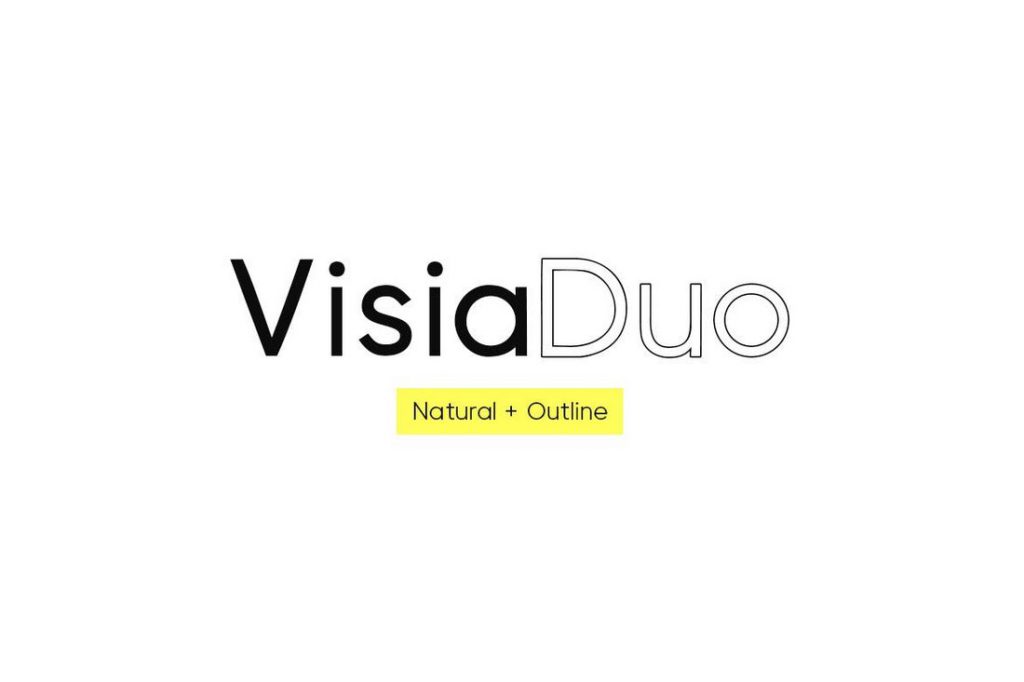
Visia Duo comes with both an outline typeface and a regular typeface, allowing you to easily combine the two to create unique designs.
The pack includes 8 different fonts including 4 different weights for the outline and regular fonts featuring bold and italic versions.
02. Pittsbrook: Modern Outline Font
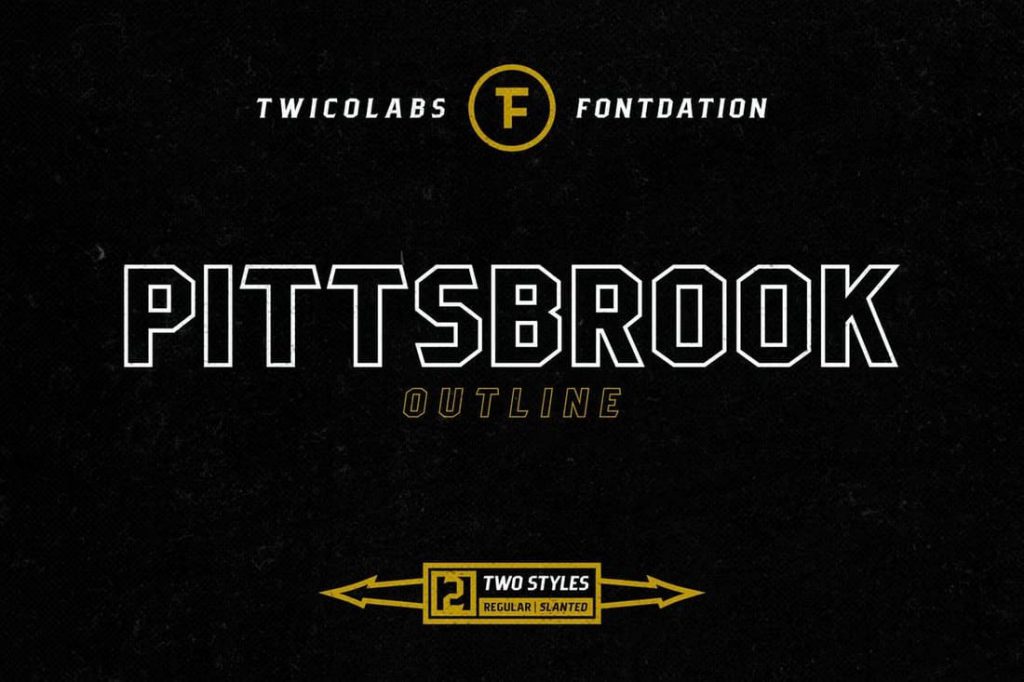
Featuring a design inspired by the classic font designs used in vintage packaging, this outline font is designed specifically for making labels and headlines. However, the font also looks like a great choice for designing sports-related logos as well.
03. Polygon Technology: Futuristic Font
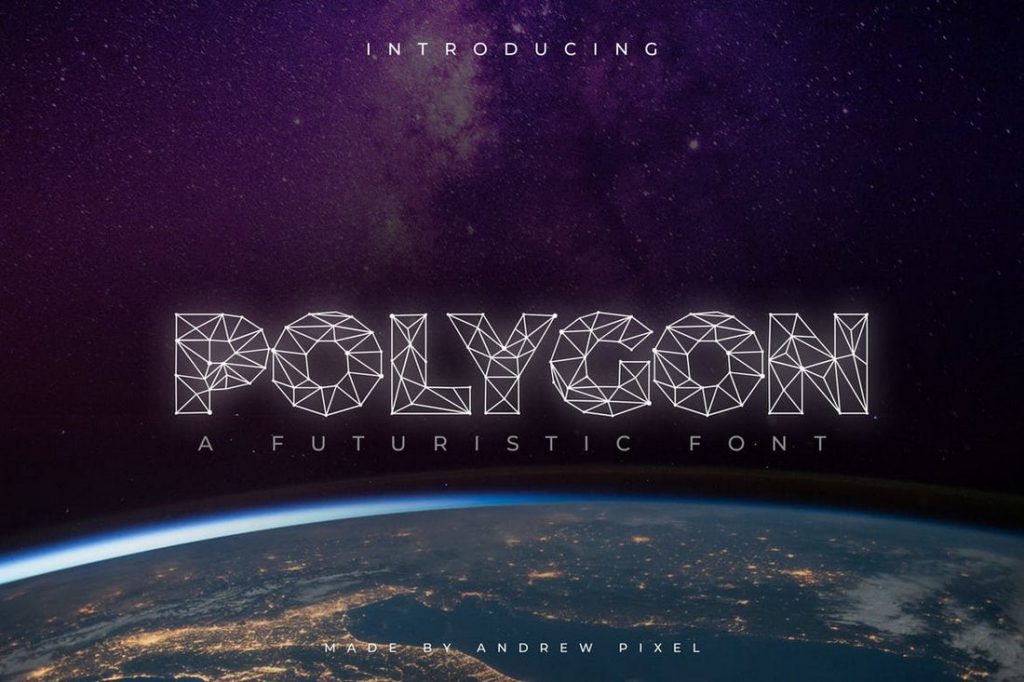
Even though this is technically not an outline font, its unique design makes it deserves a spot on our list. This font features an outline-like hollow design crafted with polygon shapes. It’s perfect for designing unique titles and logos.
04. Monday Vacation: Free Outline Font
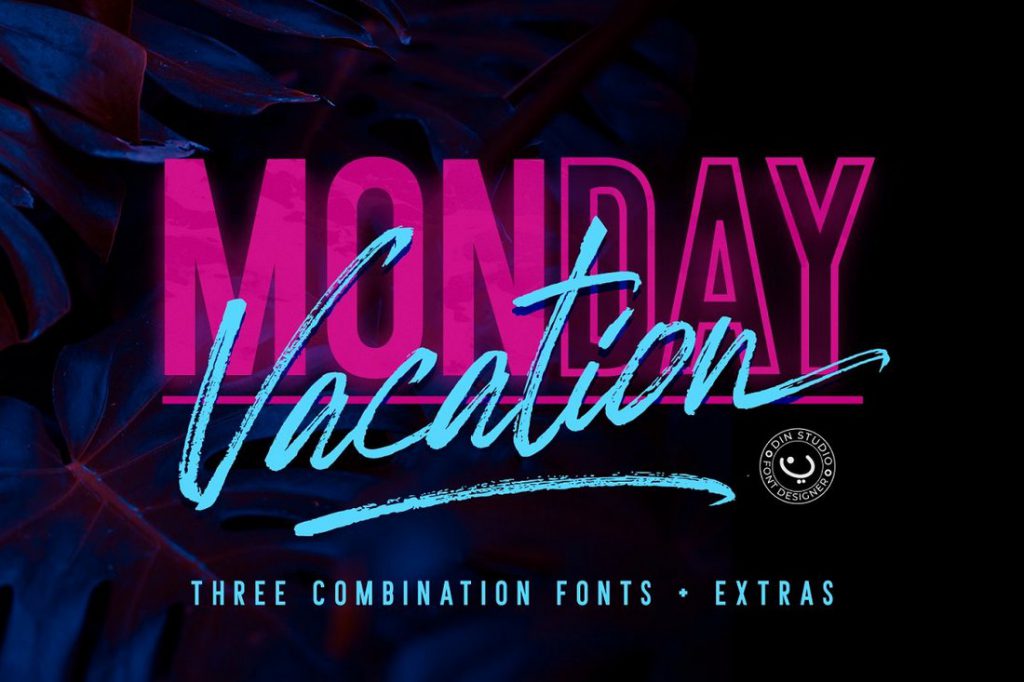
Monday Vacation is a pair of unique fonts. It includes a brush script font and an outline sans-serif font, both of which that goes together well in various creative designs. It’s free to use with personal projects.
05. Library 3 AM: Free Modern Outline Font
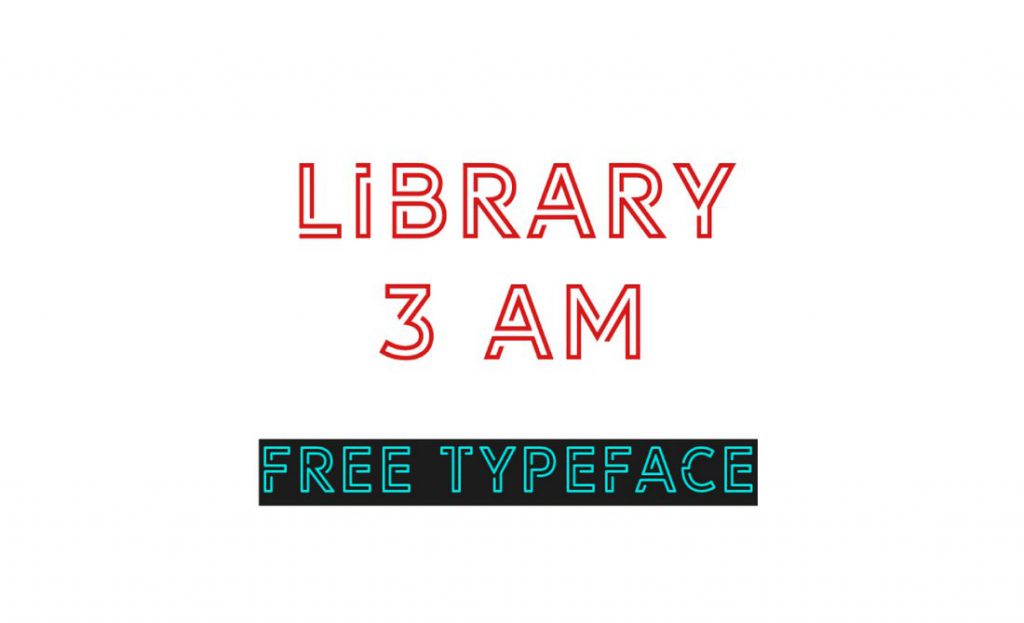
Library 3 AM is a free outline font with a creative design. This font is ideal for designing logos, business cards, posters, and more. The font is free to use with personal and commercial projects.
06. Portico Outline: Bold Display Font
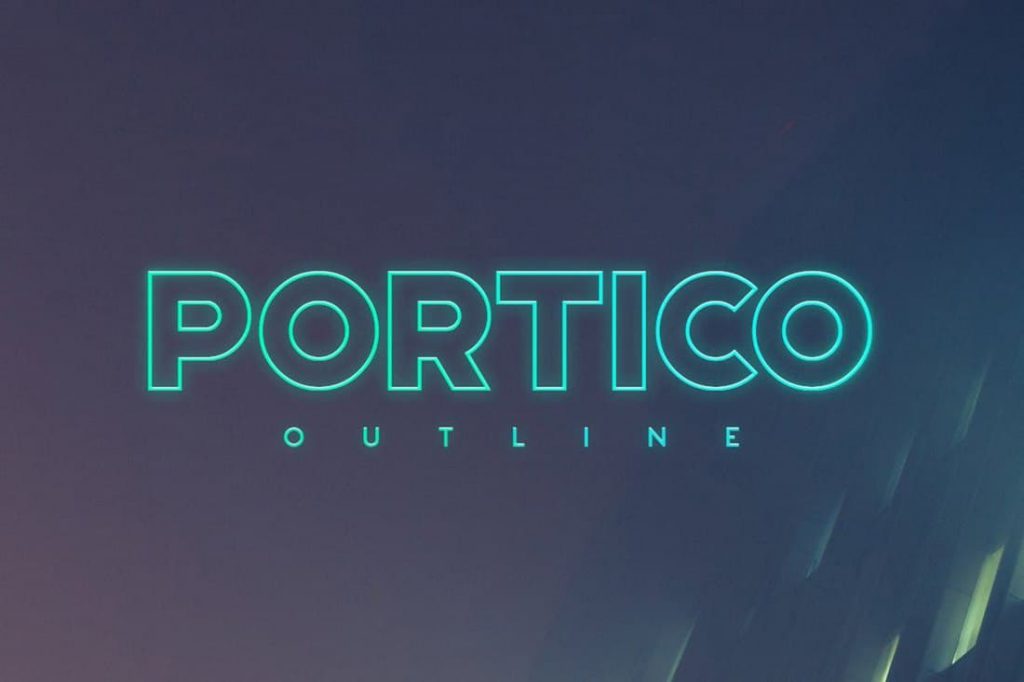
Looking for an outline display font for designing big bold titles and headlines? Look no further. Portico Outline features all the elements you’ll need to design eye-catching headers, posters, and banners that attract attention. When combined with the regular version of the Portico font, it makes a great font choice for many types of designs.
07. Burford Outline: Modern Outline Font
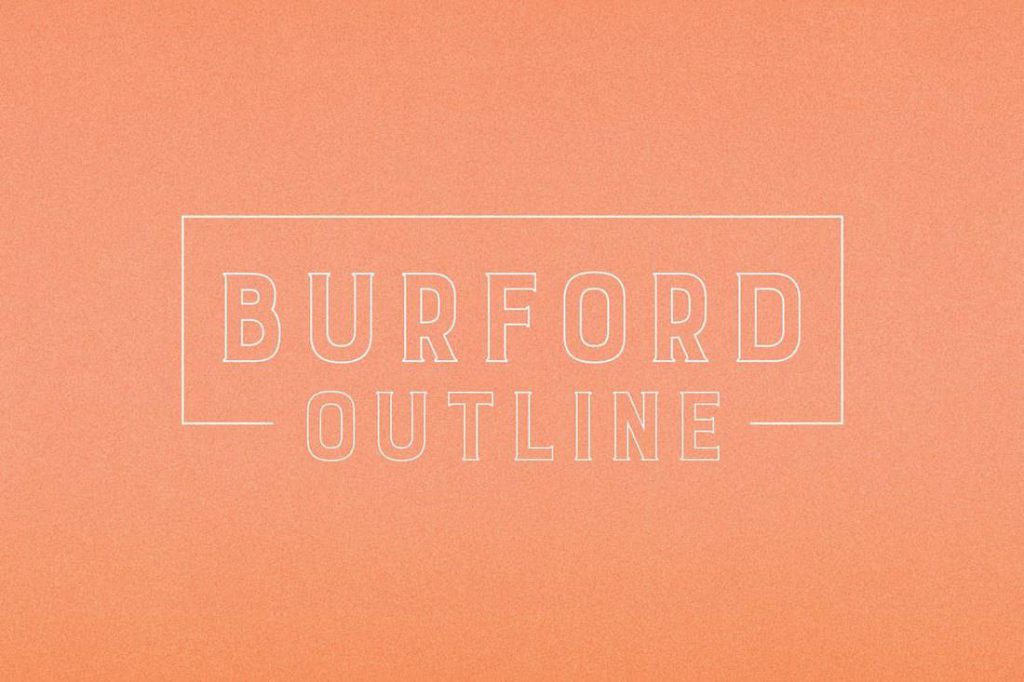
This is the outline version of the popular Burford font family. It features the same bold and elegant design of its predecessors. You can download all the other fonts of the Burford family from Envato Elements as well.
08. Freeline: Monogram Outline Font
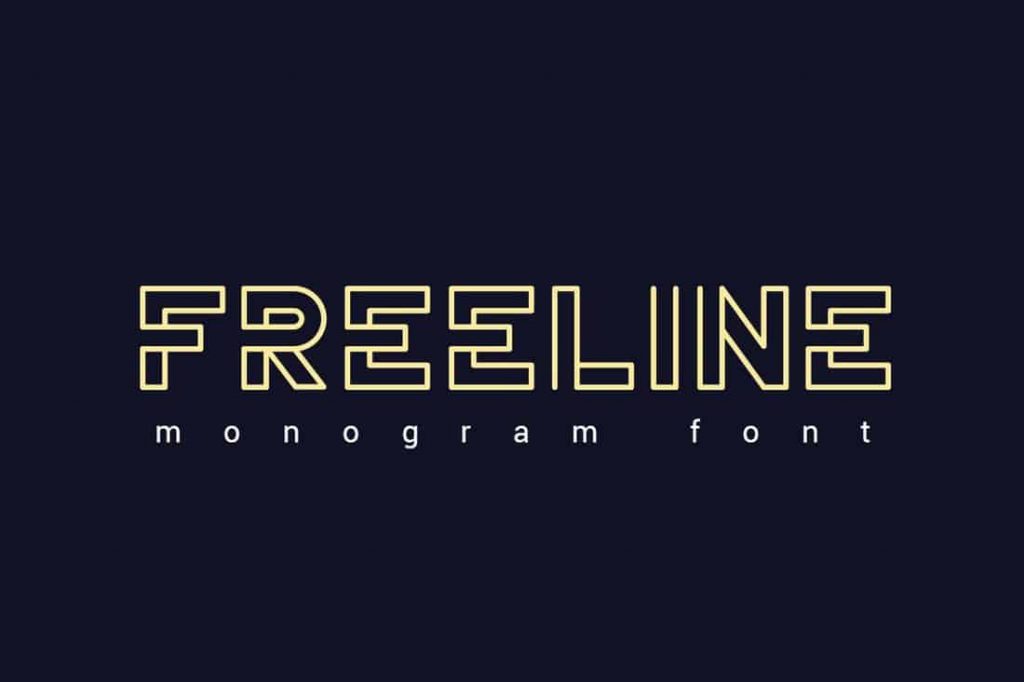
There are many different styles of outline font designs, but this particular font comes with a design that will stand out from the crowd. It has a creative monogram style design that makes it an ideal choice for crafting logos and signage as well as posters and website headers.
09. Exodar: Futuristic Outline Font
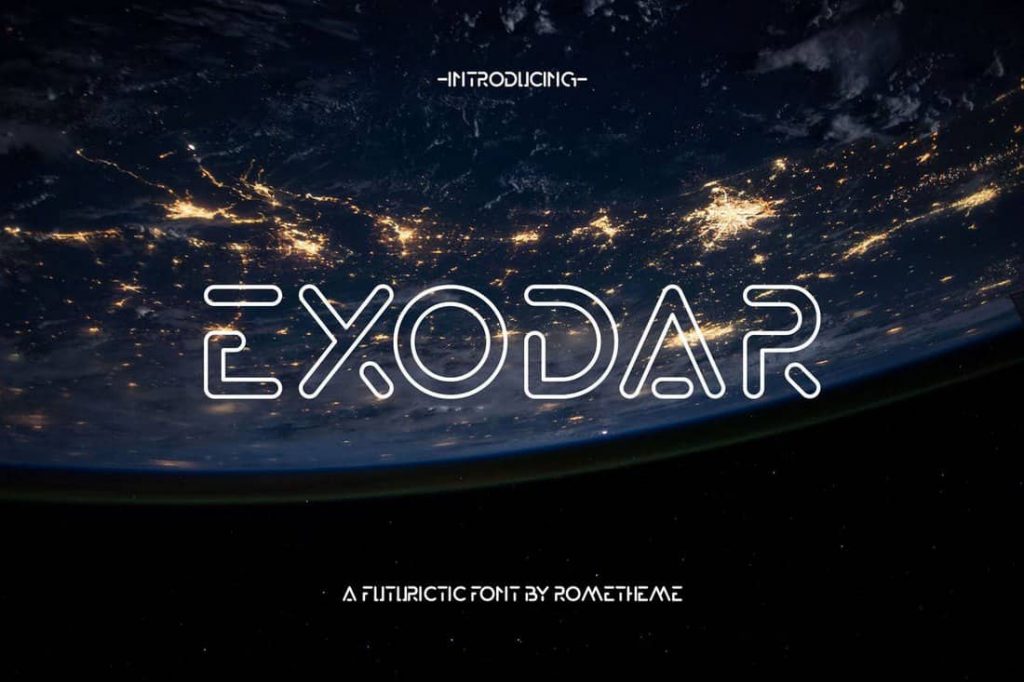
Exodar is a modern outline font that comes with futuristic design. Unlike other fonts, this one features a set of unique characters with a touch of sci-fi design. You can use this font to craft titles and headers for posters, book covers, banners, logos, and more.
10. Altero: Free Clean Outline Font
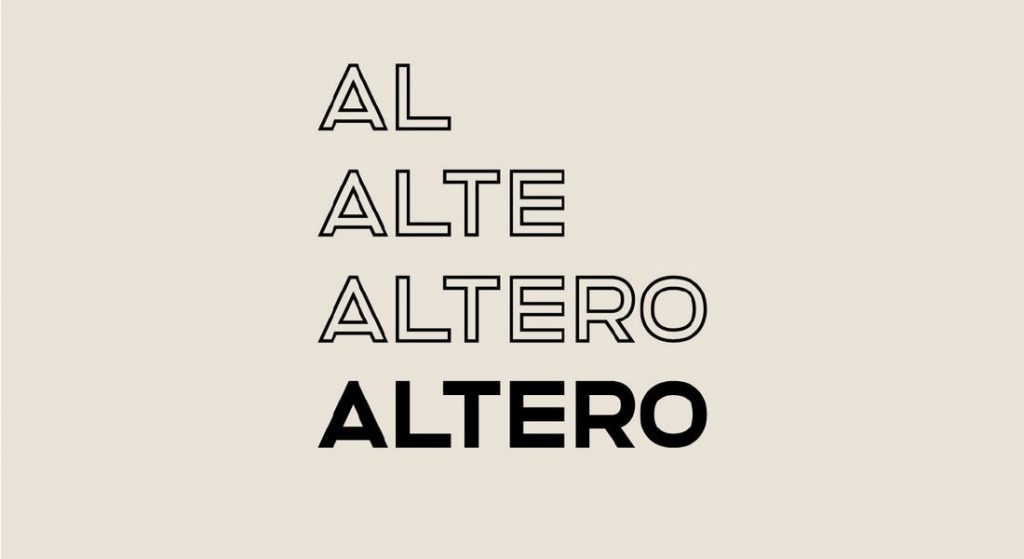
Altero is a modern outline font that features a clean and minimal design. It’s ideal for making professional designs for businesses and brands. The font is free to use with both personal and commercial projects.
11. Halfomania: Free Outline Sans Serif Font
This is yet another great free outline font with a unique design. It’s perfect for crafting modern logos and badges. The font is free to use with personal and commercial projects.
12. Organa Caps: Unique Geometric Font Family
You won’t find another outline font like this one. Organa font features a design unlike any other. The unique design of the characters will help you design creative greeting cards, business cards, posters, and much more with a touch of personality. The font is available in 3 different styles, including fill and outline.
13. Tuck Shop: Quirky Font Pack
Tuck Shop is a fun and quirky chalk font that features a handcrafted design. The font lets you choose from 3 different styles, outline, regular, and decorative to use the font with various types of projects.